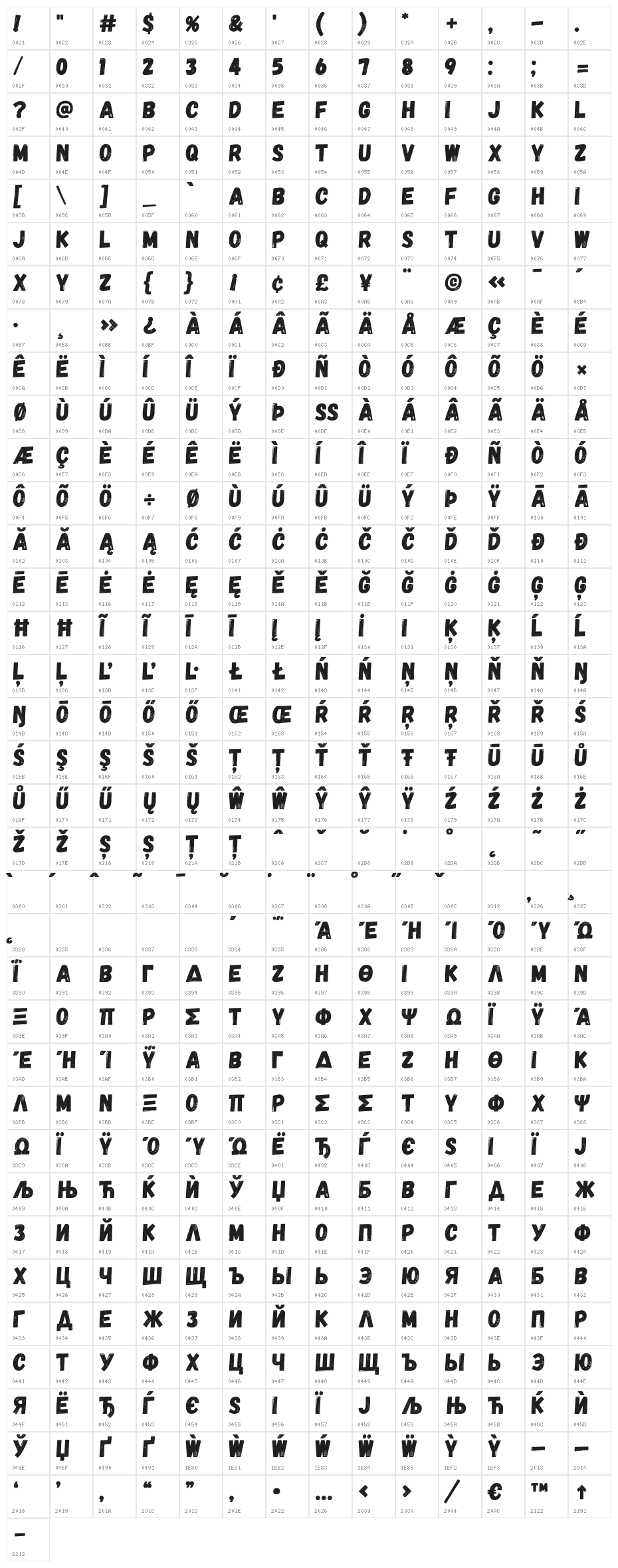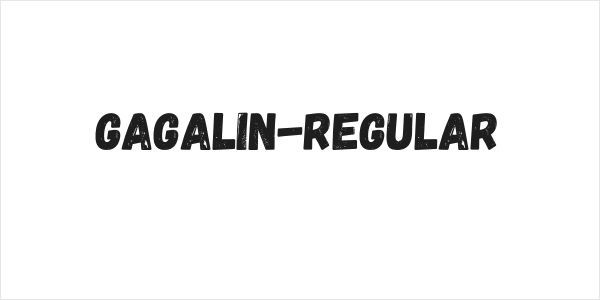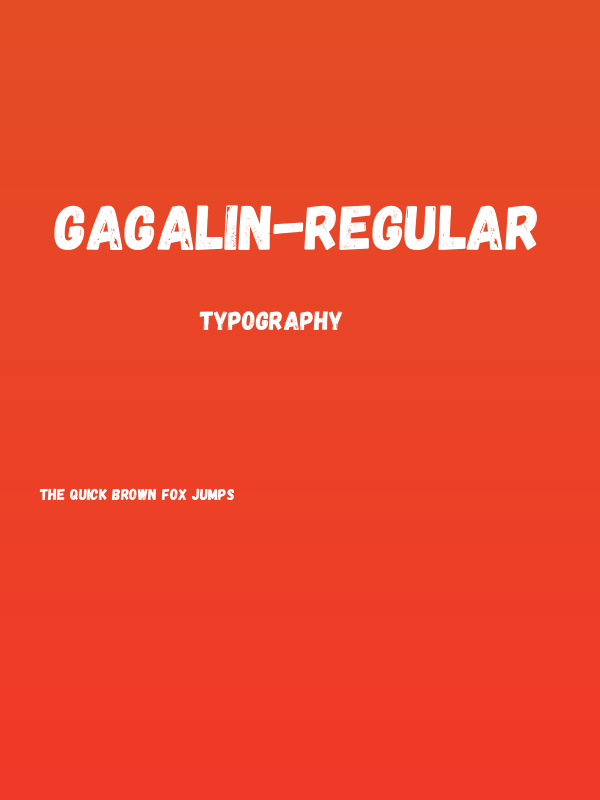
Gagalin-Regular Font
Gagalin-Regular Description
This font features a bold and playful style with a distressed texture that gives it a rugged, vintage feel. The characters are thick and slightly uneven, adding a hand-drawn, organic quality. The uppercase and lowercase letters maintain a consistent weight, while the numbers and special characters follow the same design ethos, ensuring uniformity across all glyphs. The font's unique texture and bold presence make it stand out, ideal for projects that require a strong visual impact. Its informal and lively appearance makes it suitable for creative and artistic applications.
| Proposed Projects | Ideal for posters, branding, packaging, and any design needing a bold, vintage touch. |